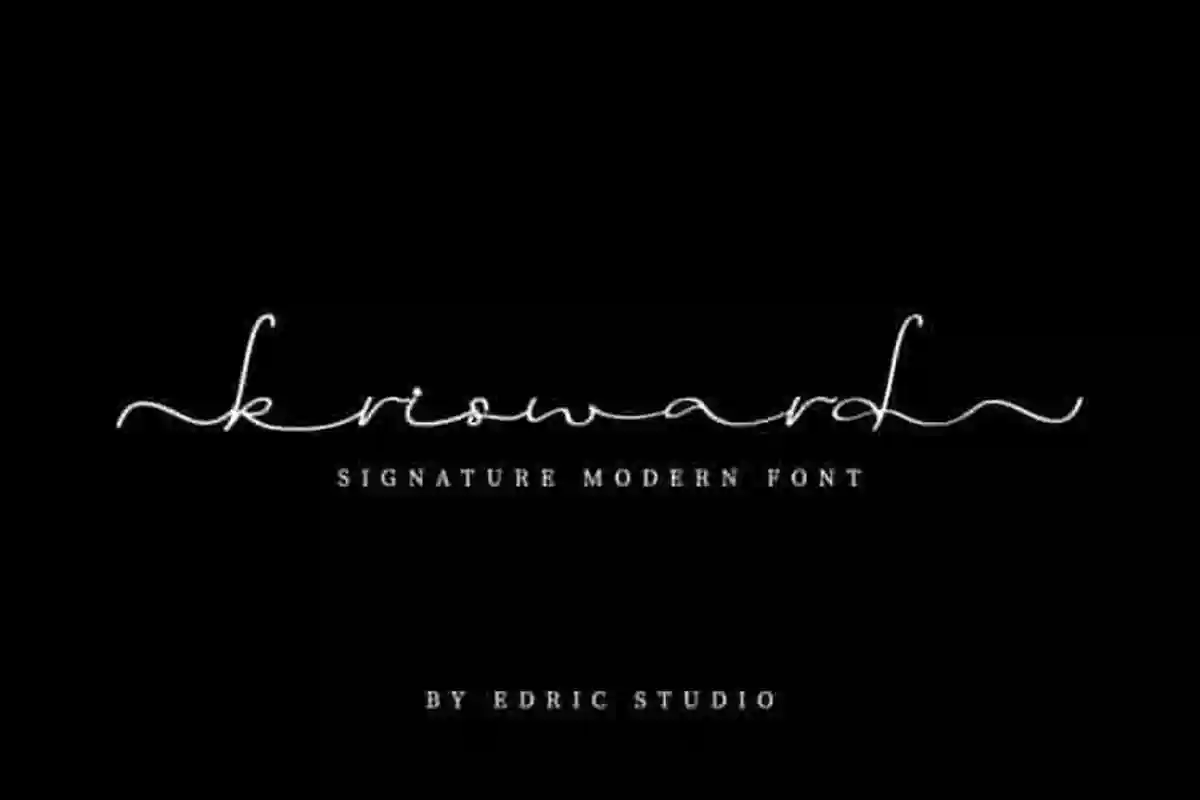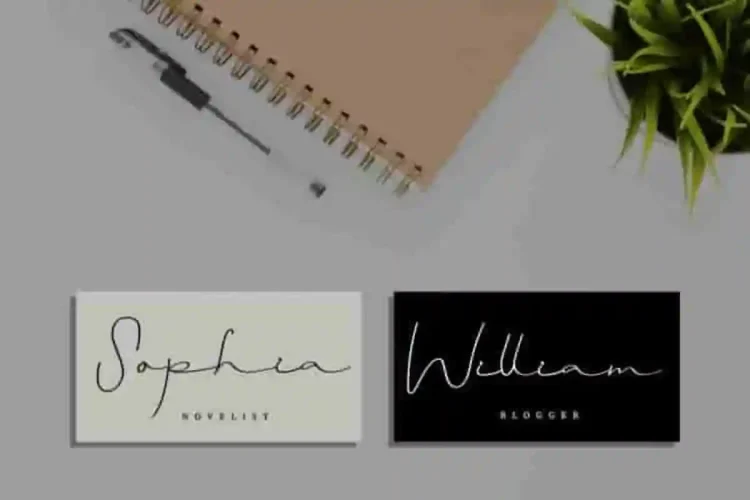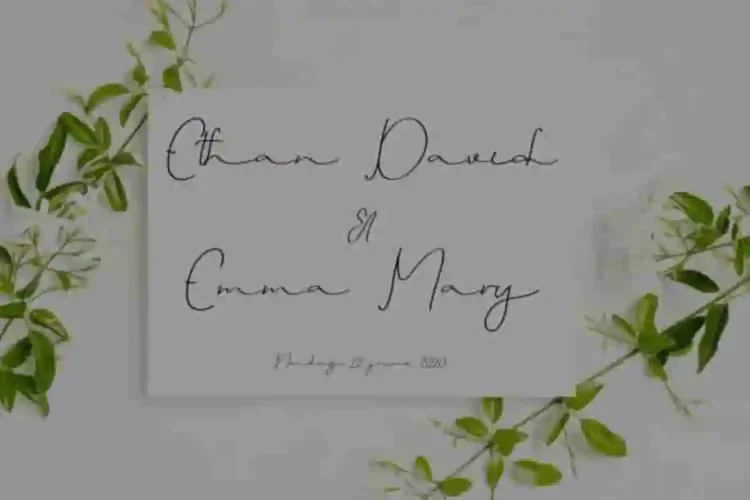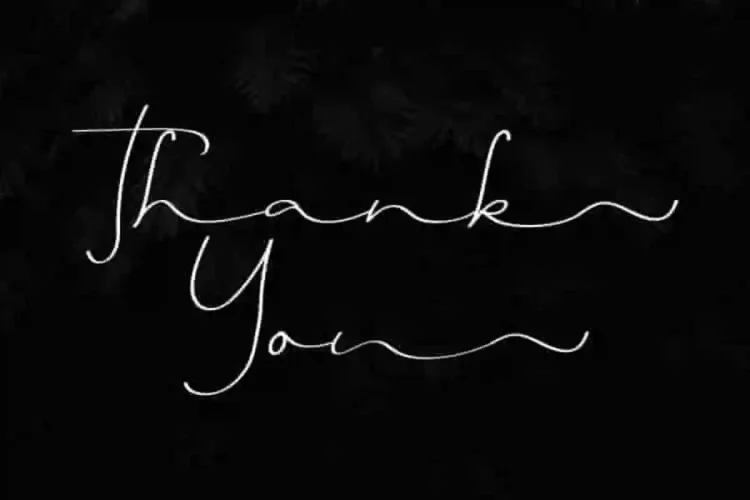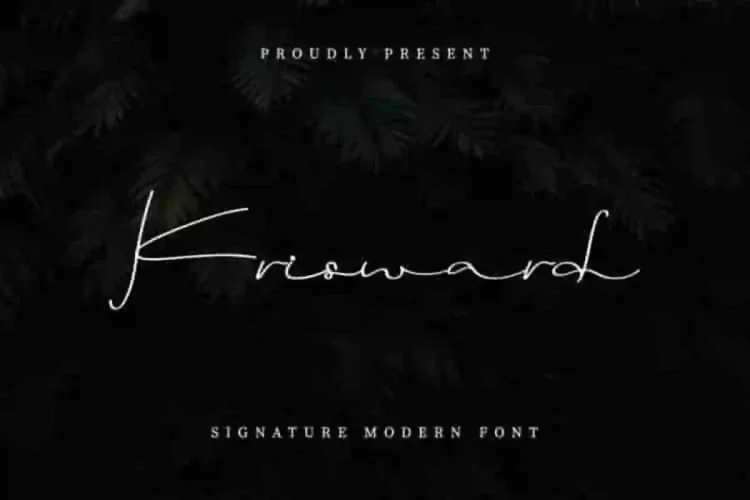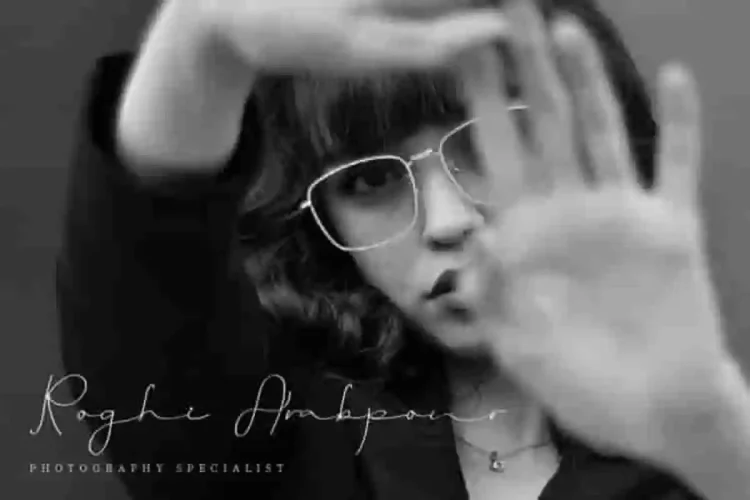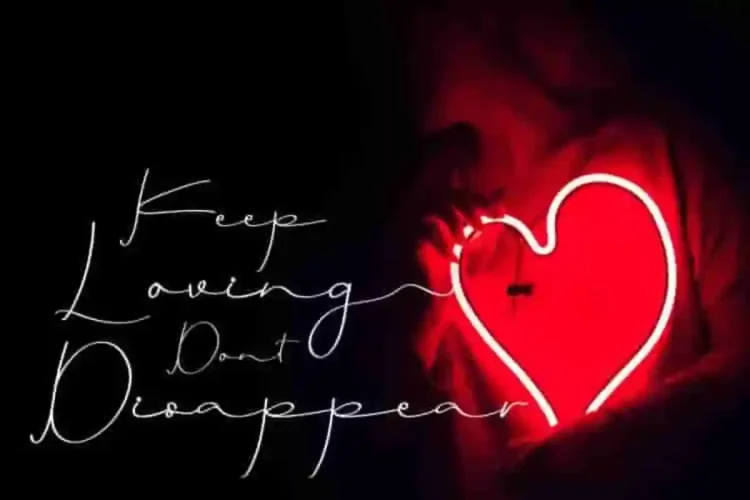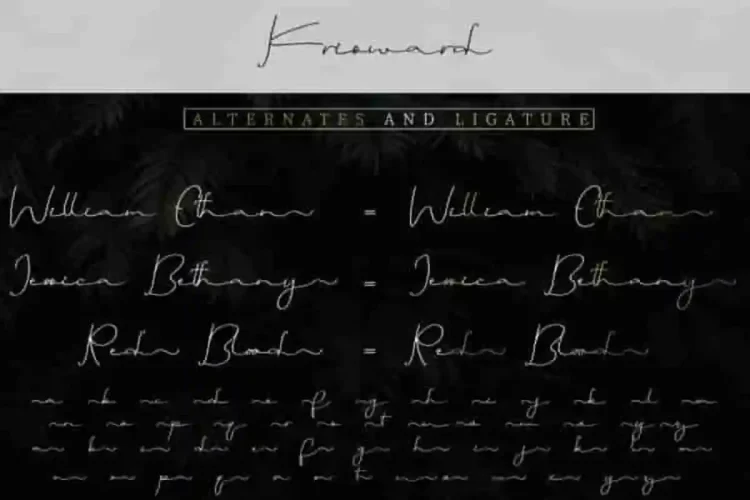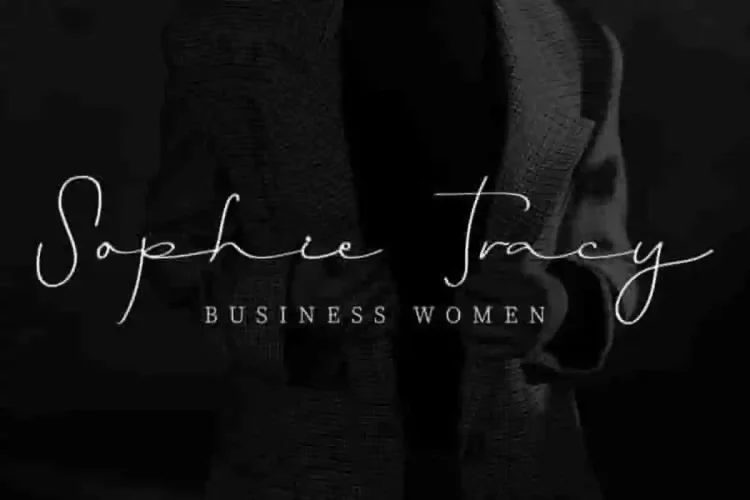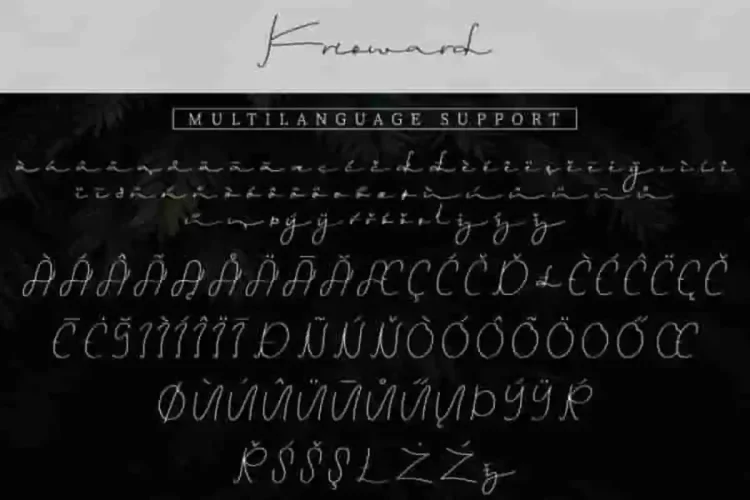
Krisward Signature Modern Font
Krisward Signature Font
The newest font from our lovely artist :  Krisward Signature Fontt
This is a Signature font, handcrafted from our Studio here in, Indonesia. The artists/designers of this beautiful tyeface is Yasri and Suci.